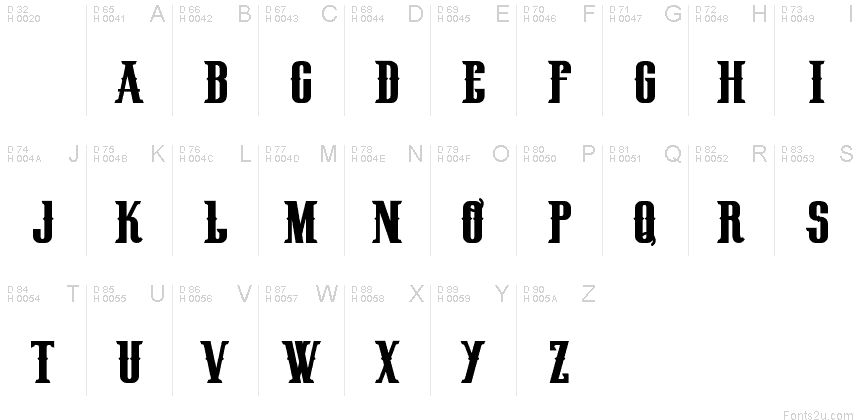
Henry Rodeo Circus from FontsCafe is a free Western display font with the tall, forceful build of rodeo and carnival posters. Sharp inward notches bite into the broad slab serifs.
Packaging offers the lettering a natural home, especially on hot sauce labels, craft drinks, and barbecue products with an old-showground theme. It also suits event posters and music merchandise, where the narrow proportions and oversized decorative cuts echo hand-painted fairground signs. In editorial design, it can turn a cover line or section opener into a direct reference to frontier entertainment and traveling circus graphics.